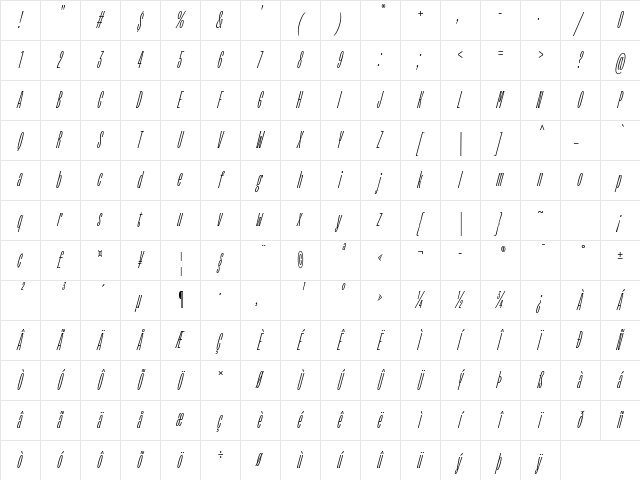
TT Trailers Trial Thin Italic Free Font
TT Trailers Trial Thin Italic
Style: Thin Italic
Designer: Designed by Ivan Gladkikh, Vika Usmanova, Yulia Gonina, Kirill Maslov, Antonina Samokhina, Lada Sobchenko. Technical designers Yuriy Nako, Victor Rubenko.
Design Context for TT Trailers Trial
TT Trailers Trial is a composed and adaptable typeface that performs quietly and consistently across a wide range of design contexts. The slanted form adds forward momentum and visual energy. Its slender proportions lend an understated elegance to any composition.